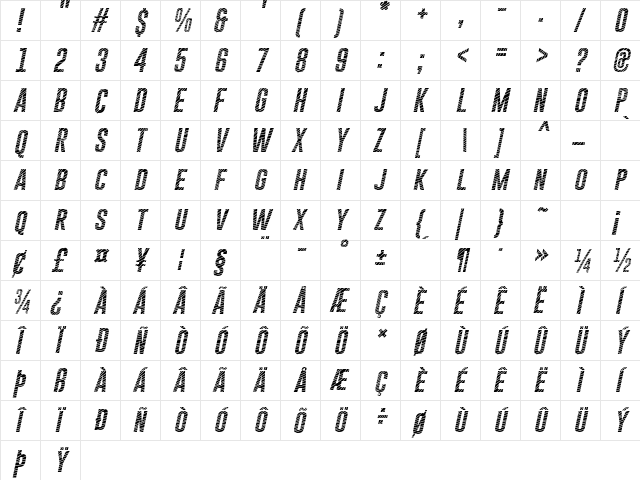
Gobold CUTS Italic
Italic · Situjuh Font Situjuh Nazara ·
Foundry Situjuh Font
StyleItalic
FoundrySitujuh Font
DesignerSitujuh Nazara
Design Context for Gobold CUTS Typeface
Gobold CUTS takes a measured approach to typography — its balanced proportions and neutral character make it a reliable workhorse for both digital and print work. The dynamic lean of this cut emphasises speed and emphasis in any layout. Its bold stroke weight gives it real presence on the page.
Pro Tip: Try Gobold CUTS for annotation and caption copy alongside an upright companion — the contrast in angle creates a dynamic but ordered typographic system.